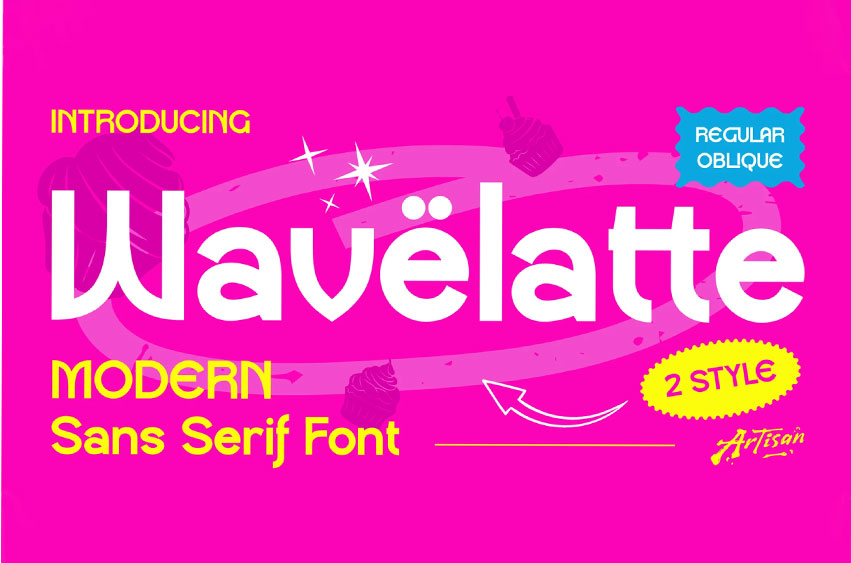
Wavelatte Font is a modern sans serif font with a sweet twist! This font comes in 2 styles (Regular & Oblique), giving you flexibility to keep it clean or add a little playful vibe. With smooth curves and rounded edges, Wavelatte feels fun, friendly, and super easy to read. Perfect for branding, food packaging, social media posts, cafe menus, kids’ projects, and lifestyle blogs, this font brings that cheerful and modern look to your designs.
Whether you’re making a cookie shop logo, a colorful poster, and any project design. It’s fresh, stylish, and versatile, so let’s add a little sweetness to your designs with Wavelatte Font today!